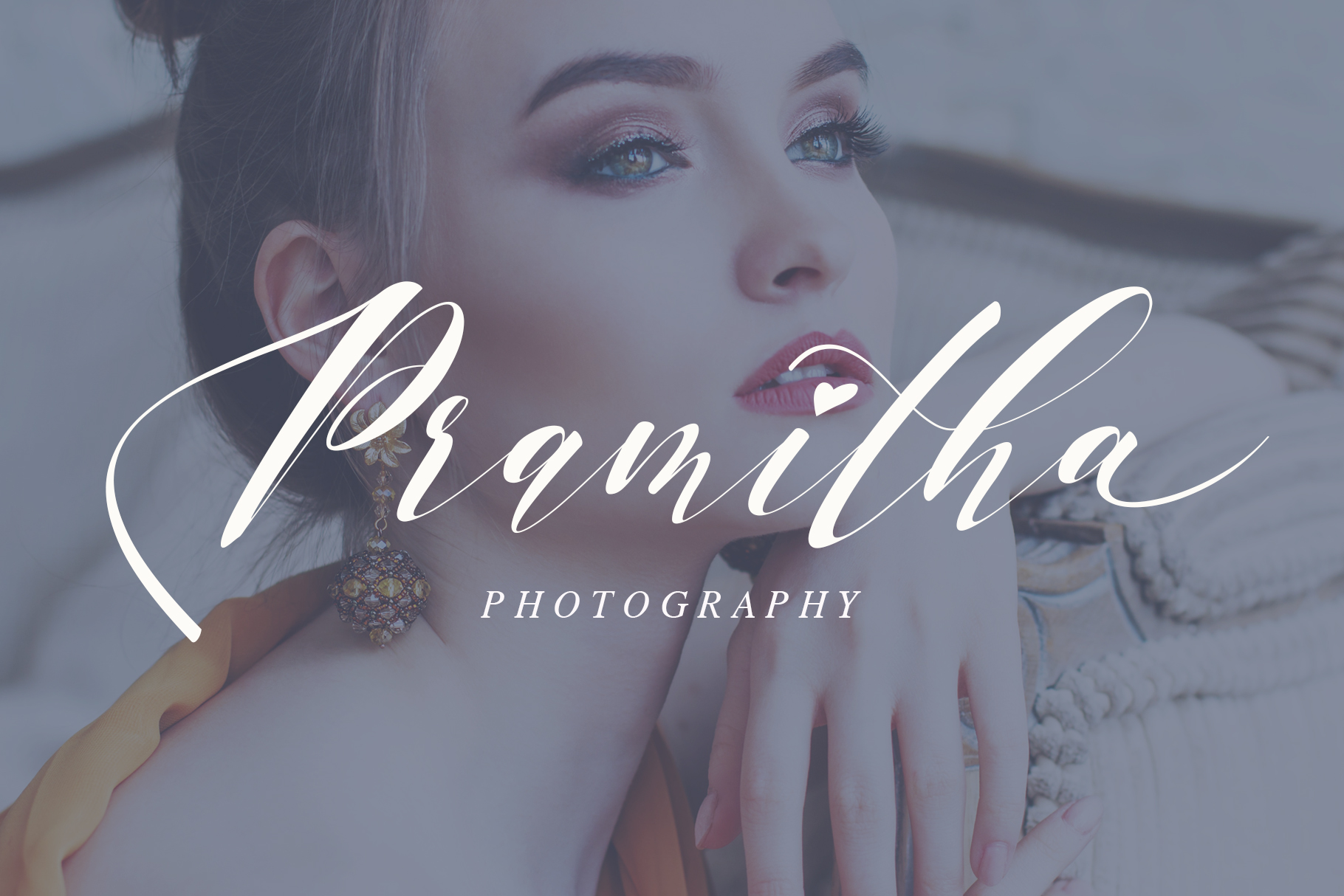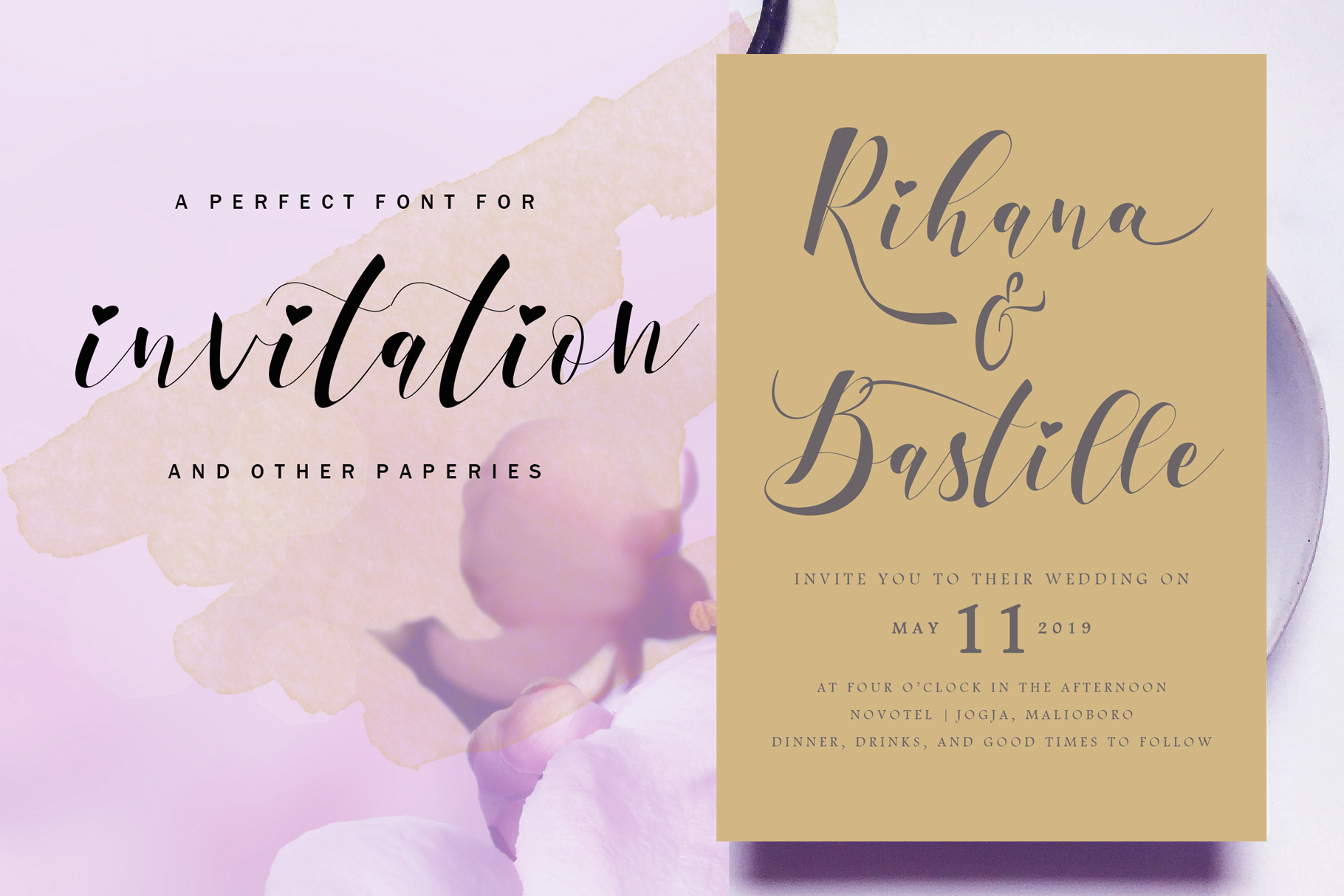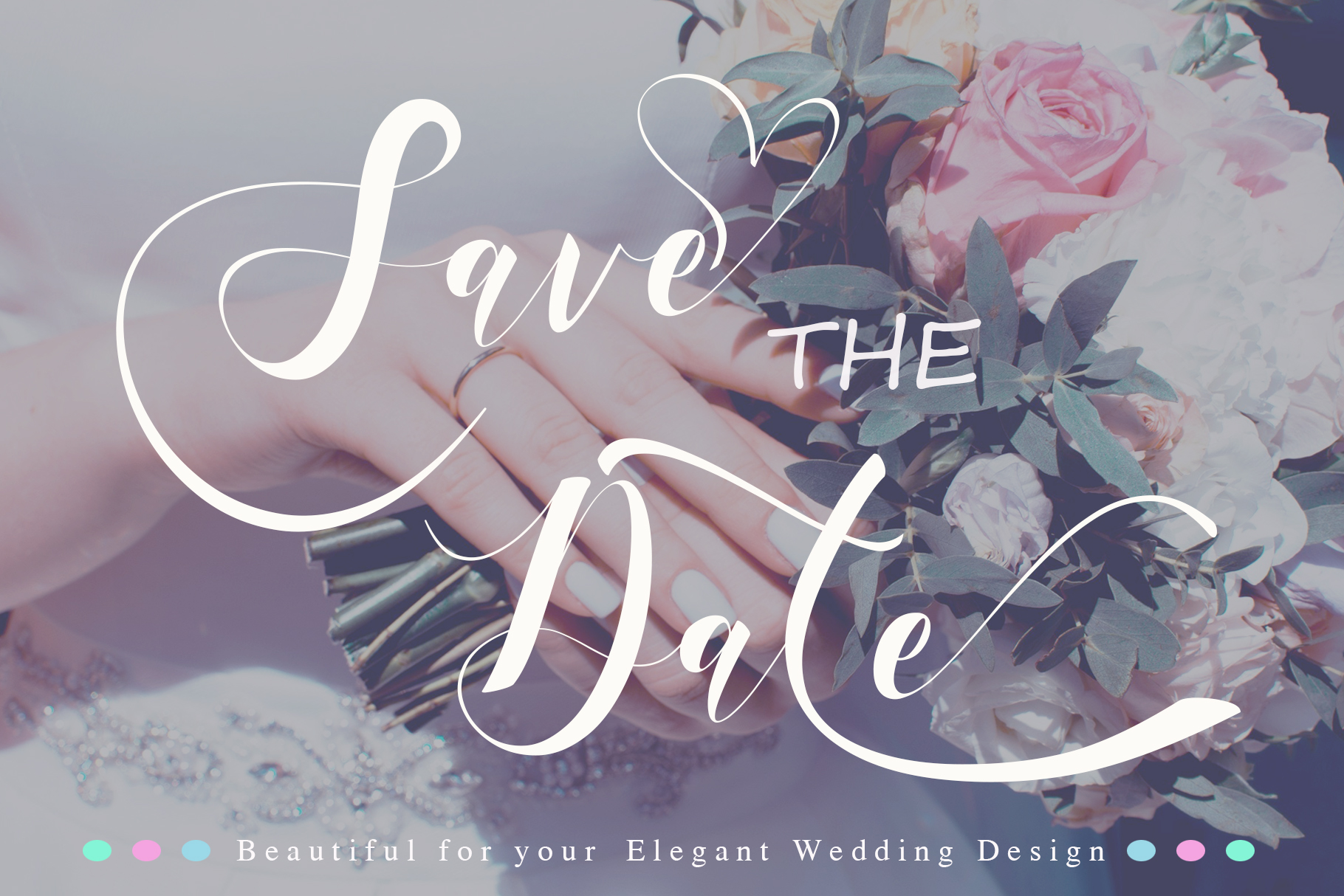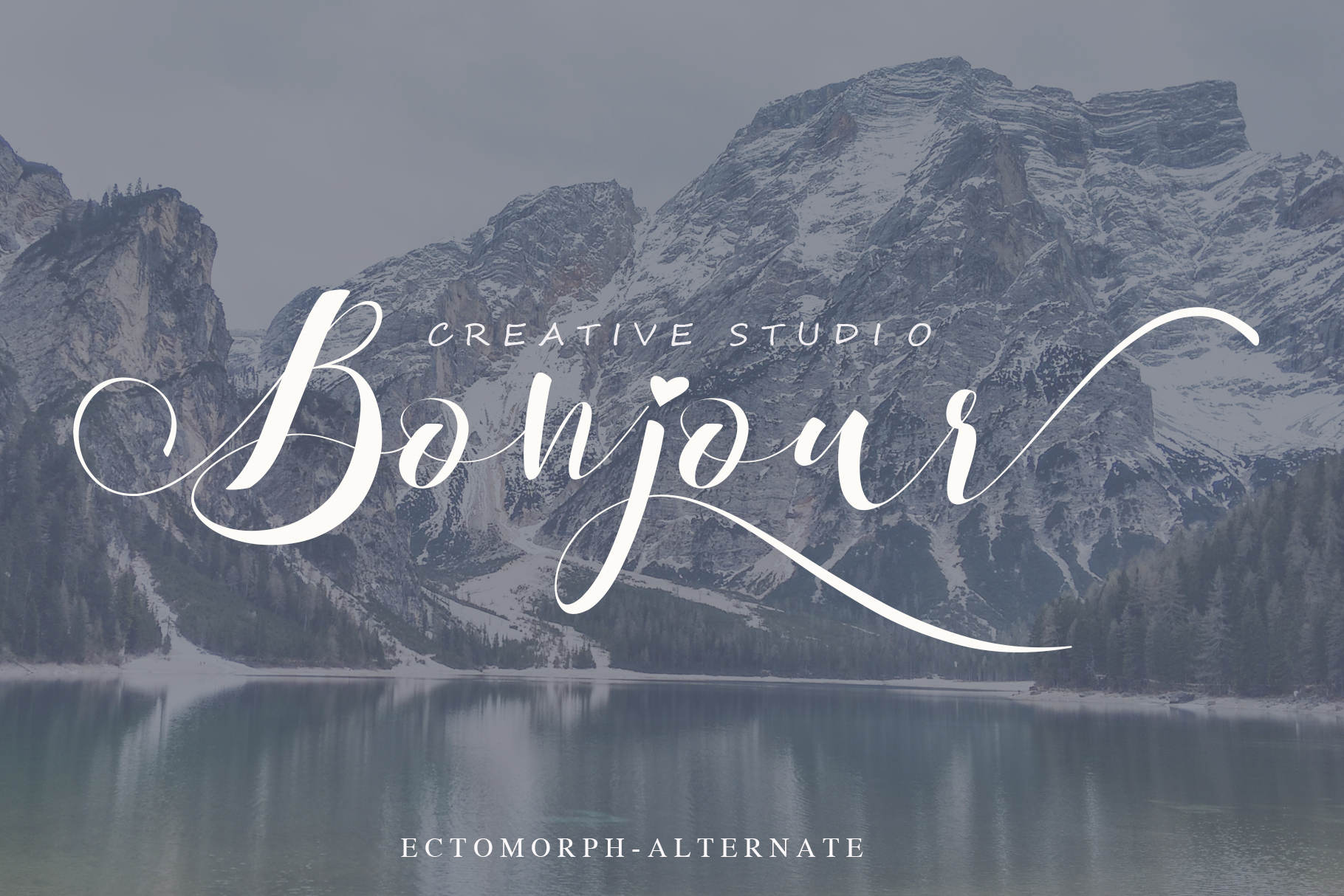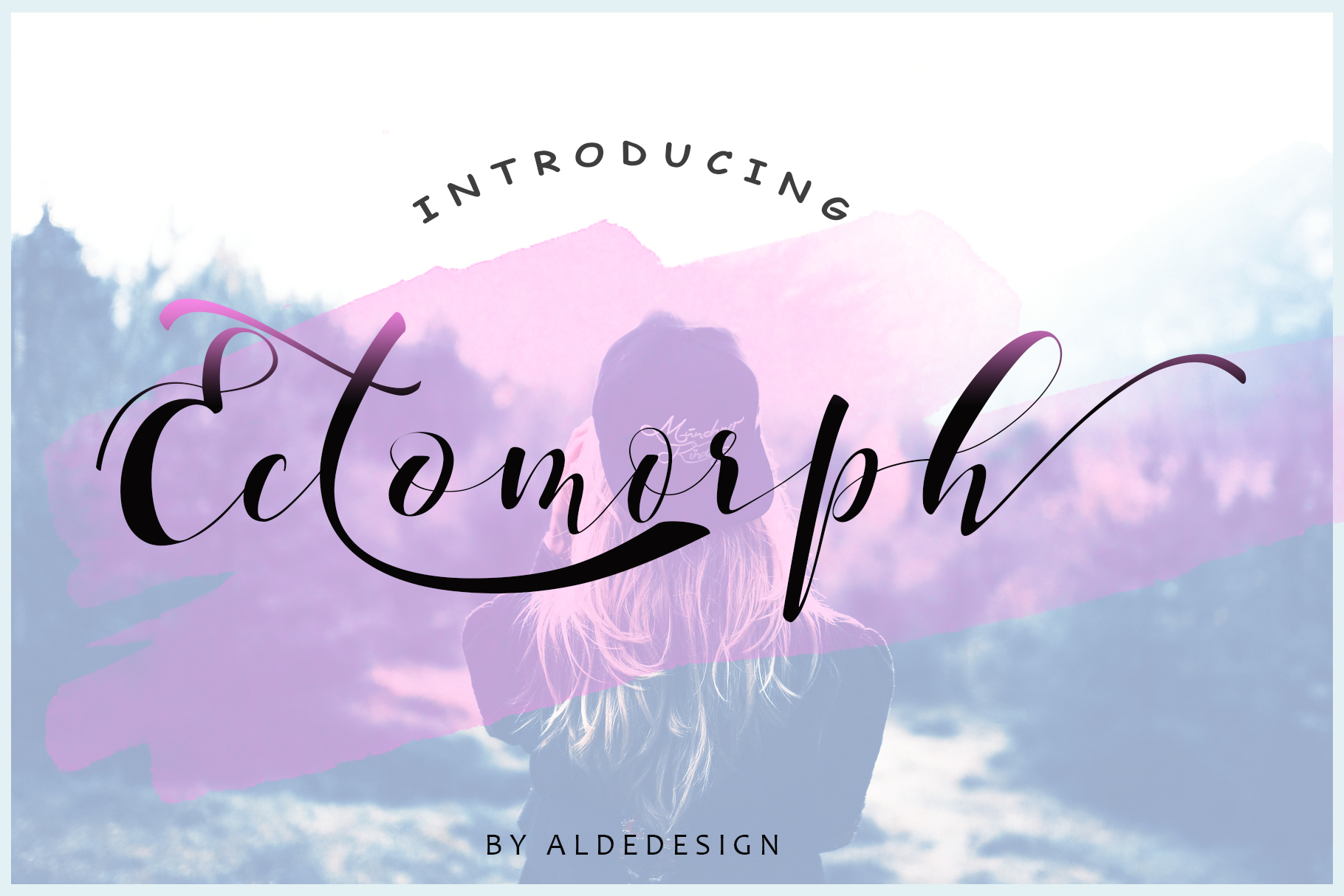
Ectomorph Script Font
Ectomorph Script is a beautiful handwritten font with stylistic alternates, swash, titling and multilingual support. Make your design looks natural and elegant in a wide range of design concepts. This script font is can be used to give your projects a modern and casual flair.